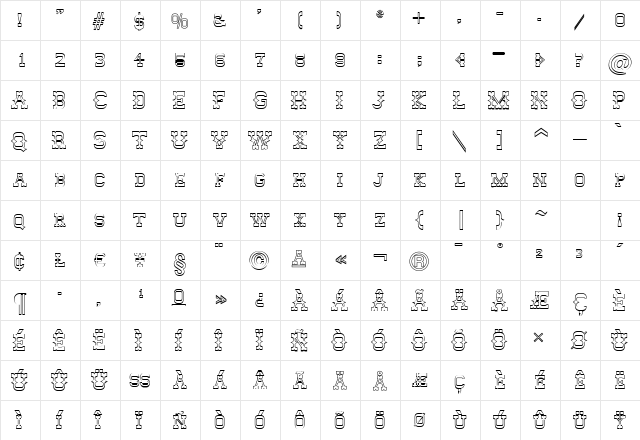
EmelyBeckerOutline Normal Font Preview
EmelyBeckerOutline Normal
Design Context for EmelyBeckerOutline Typeface
EmelyBeckerOutline is built around its visual character rather than neutral utility — its distinctive forms are designed to make an impression at display sizes.
Font Pairing: Pair with a clean neutral sans-serif for body copy to let EmelyBeckerOutline's character lead without overwhelming the composition.
Pro Tip: Use EmelyBeckerOutline exclusively at display sizes — it was designed to be seen, not read at length. Let a neutral companion handle body copy.